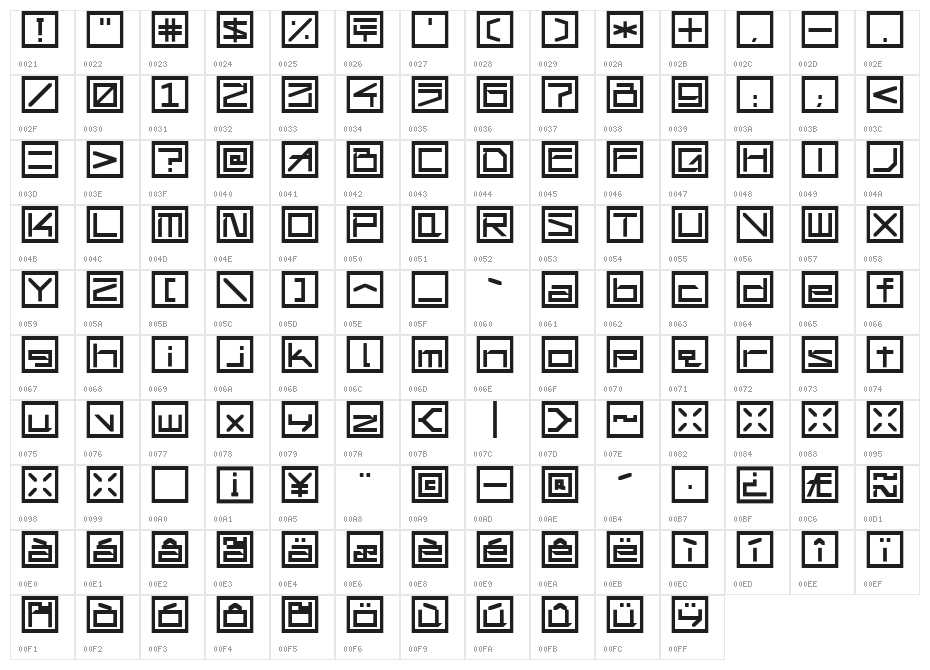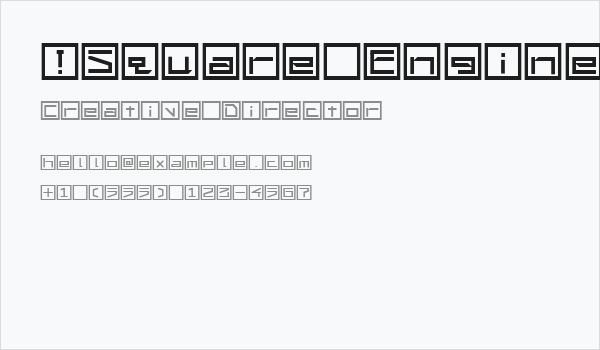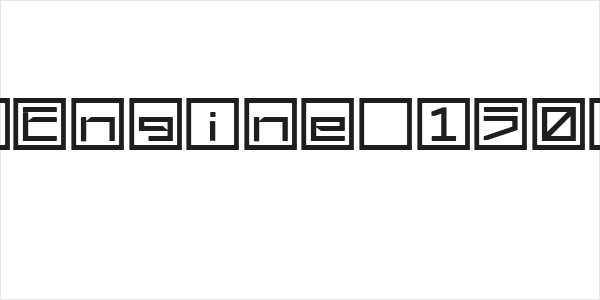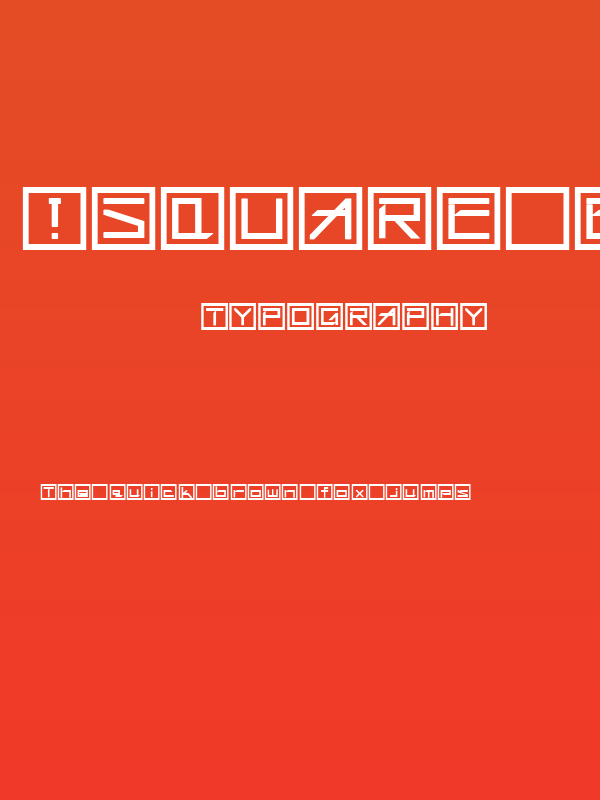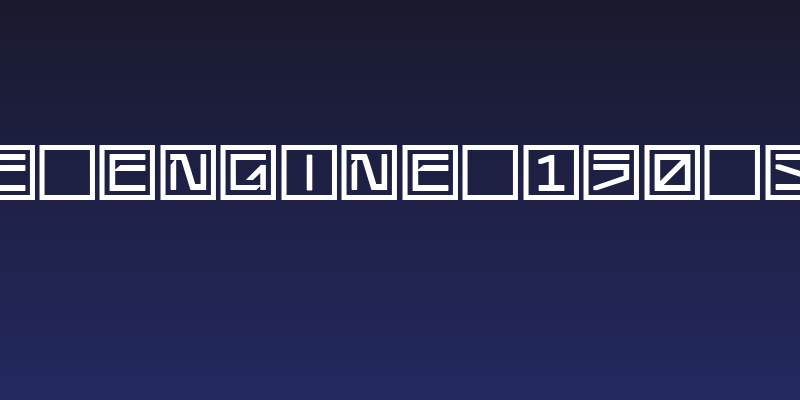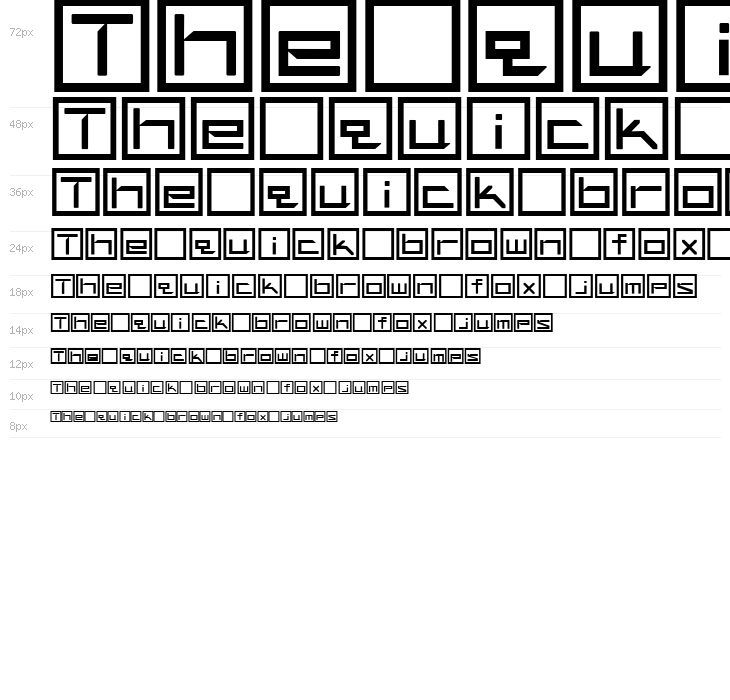
!Square Engine 150 Simplex Font
| Projets proposés | Ideal for technology-themed designs, video game interfaces, digital displays, and industrial branding. |